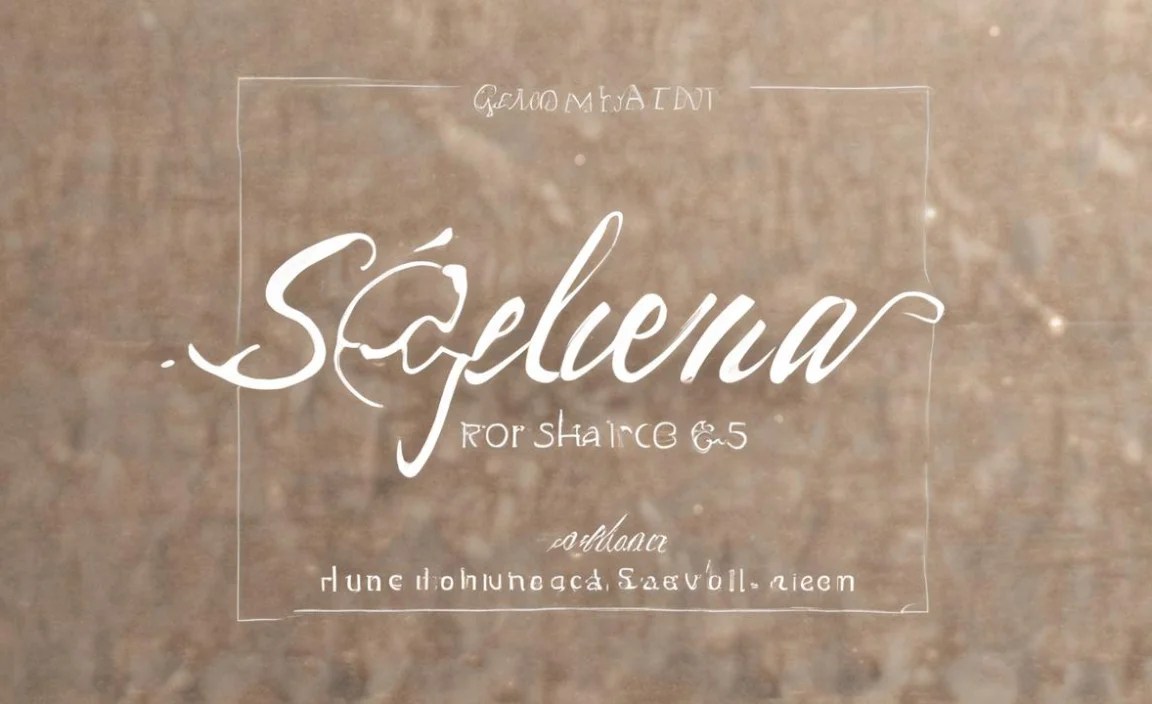
The Selena Font is a beautifully crafted modern script typeface by Iza W and published by Intellecta Design, blending elegance with versatility.
First released in 2023, Selena’s sophisticated design and smooth, flowing lines make it ideal for adding a touch of charm to branding materials, social media graphics, and wedding invitations. Available for personal use and licensed for commercial projects, Selena brings a stylish, handwritten feel to any creative endeavor, effortlessly elevating designs with its unique and decorative aesthetic.
| Style | Script, Decorative |
| Type | Script Font, Handwritten |
- Selena Regular
- Selena Italic
Where Selena Font Is In Use
- Social Media Graphics – Especially on Instagram and Facebook for stylish quotes and captions.
- Branding Materials – Logos, business cards, and other print media for a distinctive look.
- Wedding Invitations – A popular choice due to its elegant, handwritten style.
- Posters & Headlines – Ideal for event posters or promotional headers.
- Web Design Projects – Used for accents and decorative headings on websites.
For a balanced design, Selena pairs best with sans-serif fonts like Montserrat or Helvetica to complement its cursive style. Serif fonts like Garamond also create a nice contrast, enhancing Selena’s modern, handwritten feel.
2.Can Selena Font Be Used In Logos?
Yes, Selena’s script style makes it ideal for elegant and decorative logos.
3.What Projects Suit Selena Font Best?
It’s great for social media graphics, branding materials, wedding invitations, and event posters.
4.How Do I Pair Selena Font?
Selena pairs well with sans-serif fonts like Montserrat or extended serif fonts for contrast.
5.Does Selena Font Support Multi-Language Use?
Yes, it includes a variety of characters and symbols for multilingual applications.